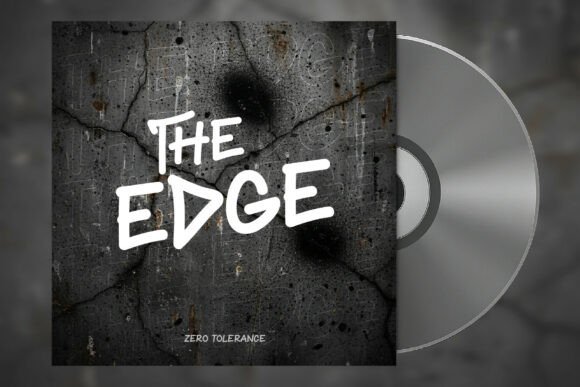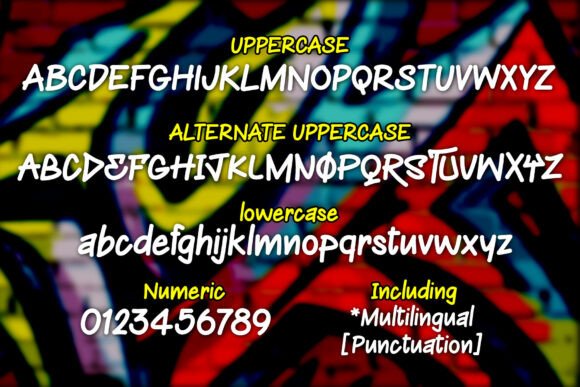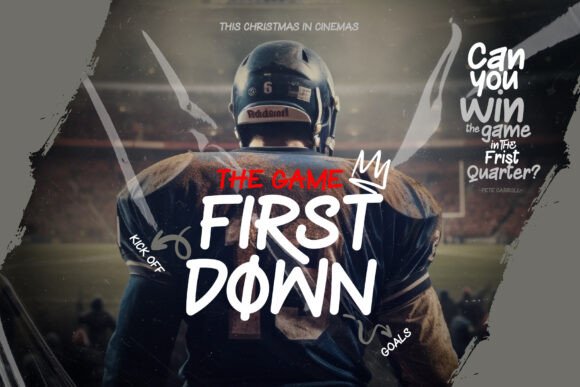
Introduction to Nomad Type Font
You’ve stared at a blank canvas, brainstorming ideas for your next creative project, and suddenly, a spark of inspiration hits. The words flow effortlessly, and your imagination runs wild. This is the moment when the right design resource can elevate your vision and set it ablaze. Introducing Nomad Type Font, a revolutionary handwritten display font that captures the unbridled energy of street art and the sleek, modern appeal of sports aesthetics.
Whether you’re crafting a striking poster, designing a high-quality album cover, or creating engaging social media graphics, Nomad Type Font is the perfect companion for your creative journey. With its PUA-encoded features, you’ll have seamless access to all glyphs, swashes, and alternate characters, allowing you to customize your creations with ease and precision.
Key Features of Nomad Type Font
- Unique, modern design with a minimalist aesthetic
- Perfect for digital designers, graphic designers, and artists
Honest Review: Nomad Type Font
- ✨ High quality: The font is crisp and clean, making it perfect for both digital and print designs.
- ✨ Versatile: Nomad Type Font is suitable for a wide range of design projects, from logos to typography-heavy websites.
- ✨ Transparent background: This feature makes it easy to use the font on top of different backgrounds without any issues.
- ⚠️ Limited font weights: While the font is versatile, it would be great to see more font weights added to the collection.
- ⚠️ No italic or oblique styles: Although not a major issue, it would be nice to have these additional styles for added variety.
Overall, I’m impressed with the Nomad Type Font. It’s a great design resource that can elevate any creative project. While it may have some limitations, its high quality and versatility make it a worthwhile addition to any designer’s library.
Nomad Type Font
Tips for Getting the Most Out of Nomad Type Font
For the best results, use the Nomad Type Font with a transparent background to create a modern and sleek design. Experiment with different font sizes and colors to add depth and visual interest to your project.
The Nomad Type Font is perfect for a variety of projects, including blog posts, social media graphics, and marketing materials. Its high-quality design and transparent background make it an ideal choice for creative professionals and hobbyists alike.